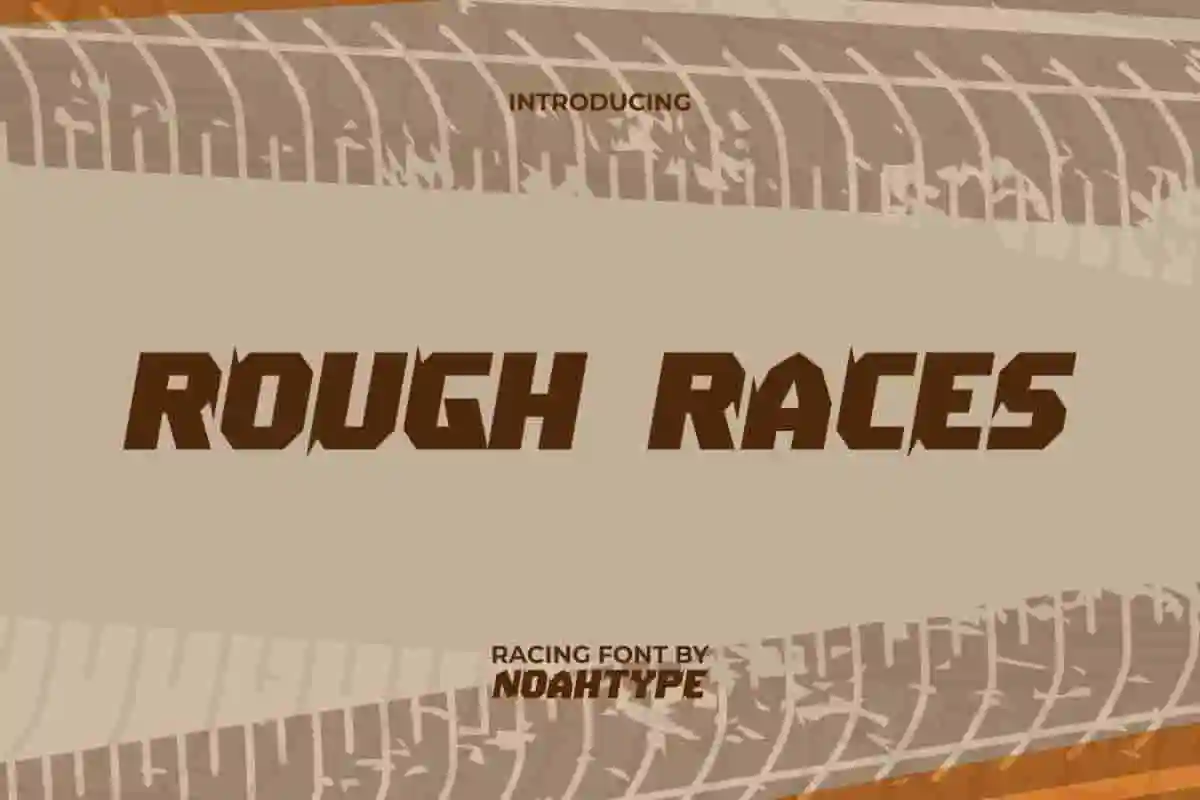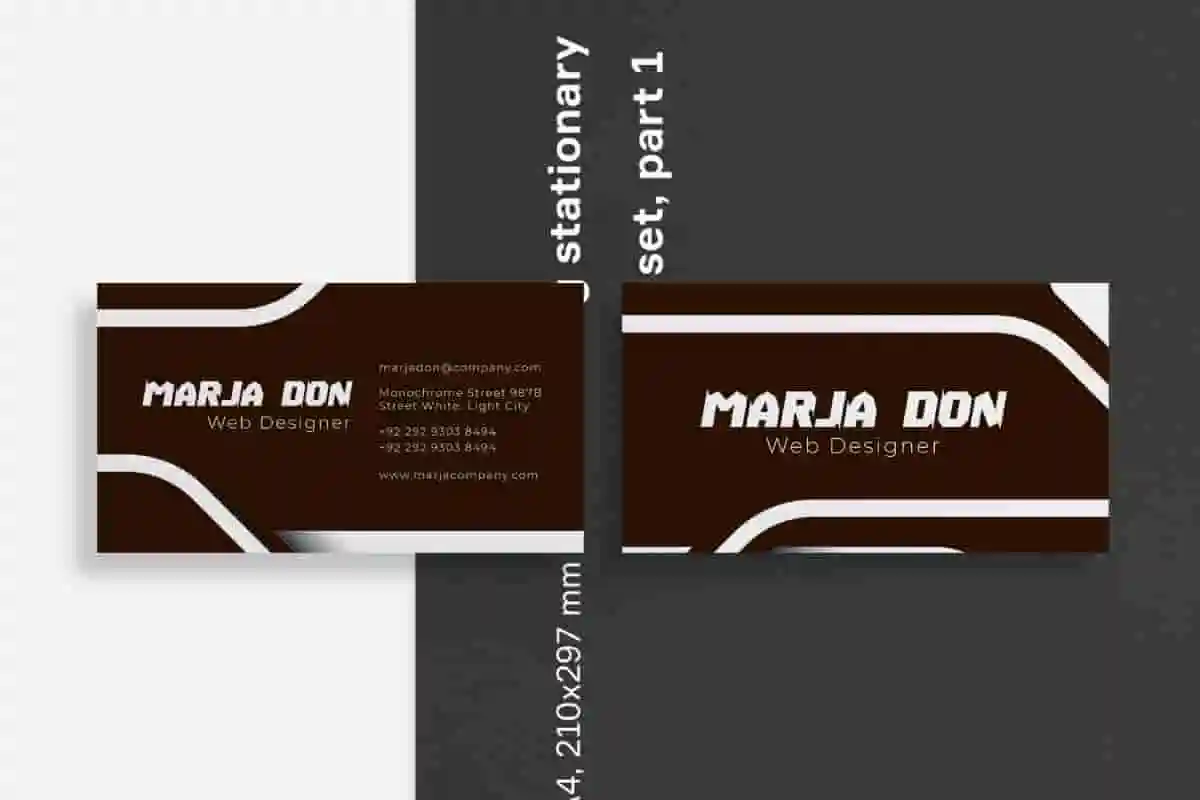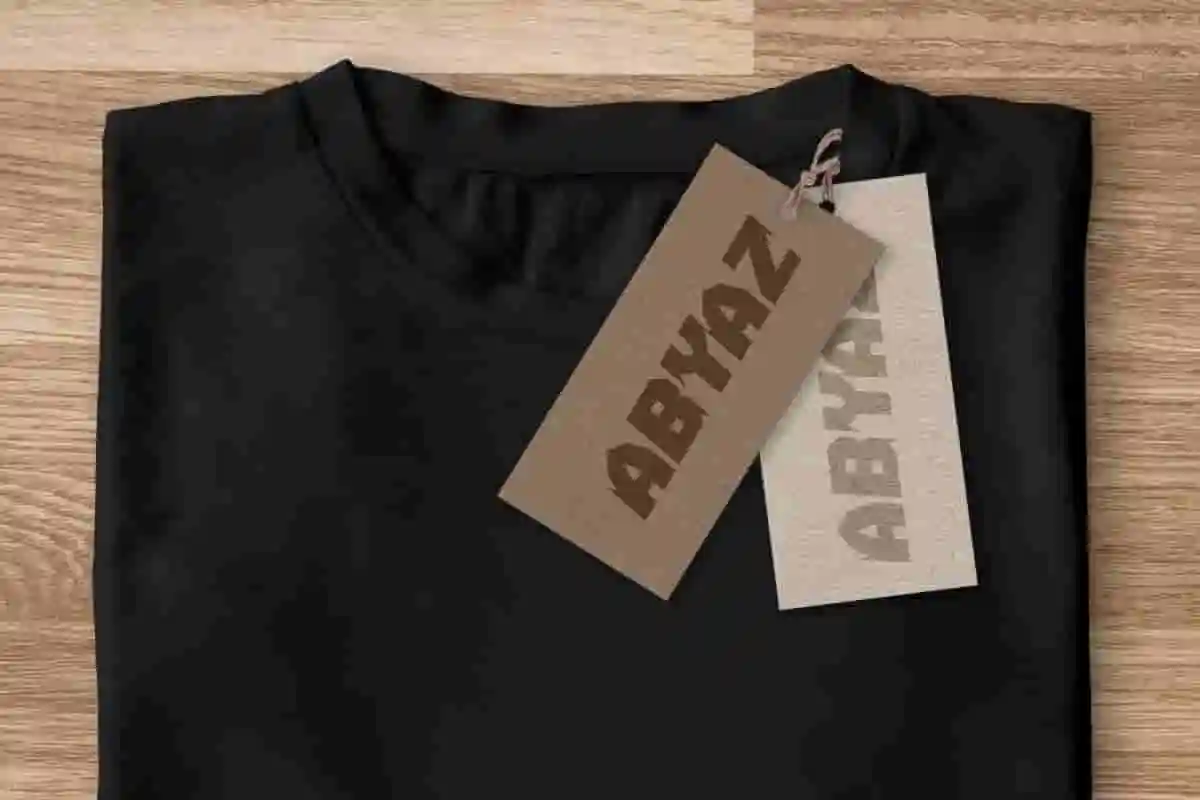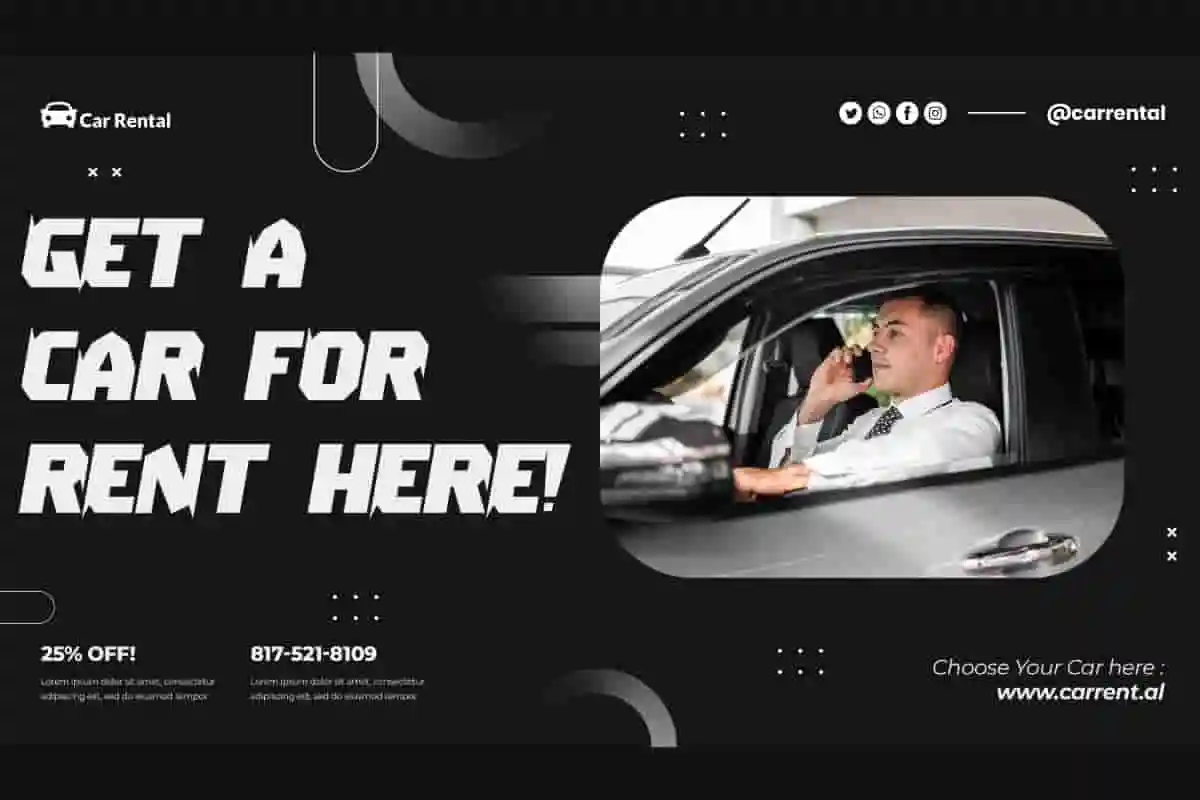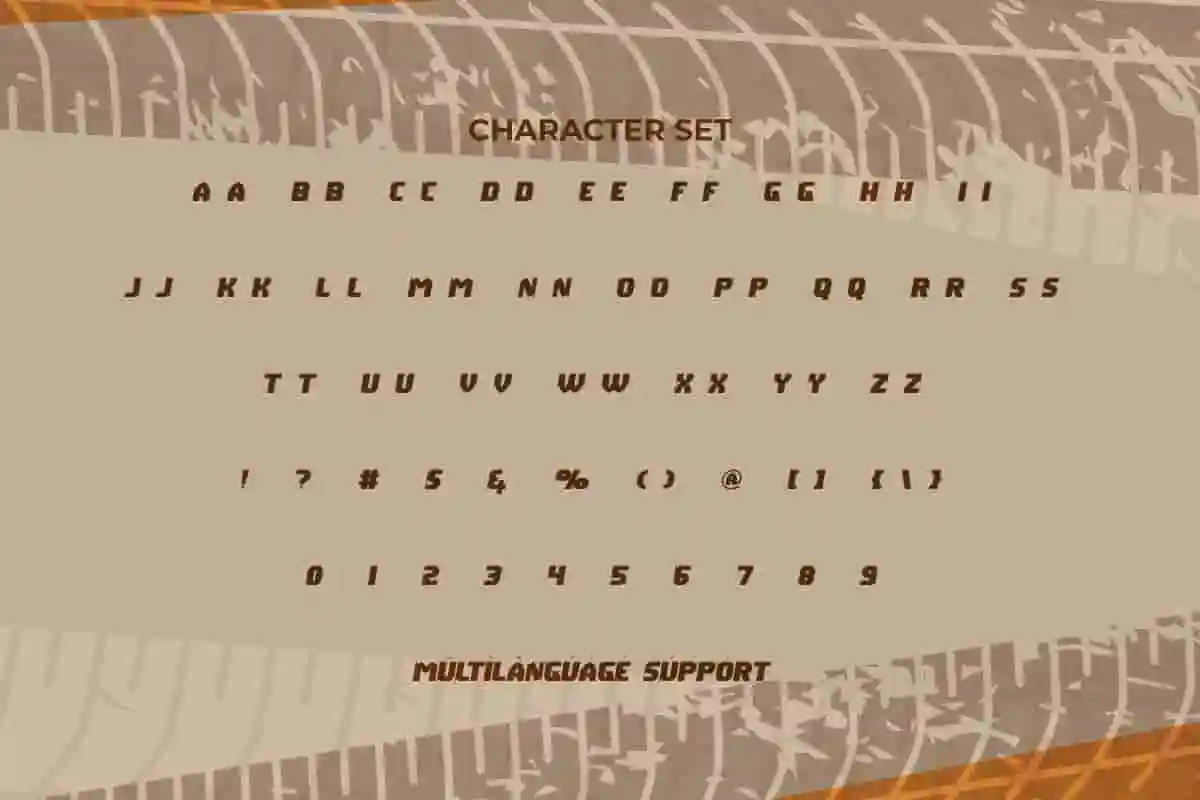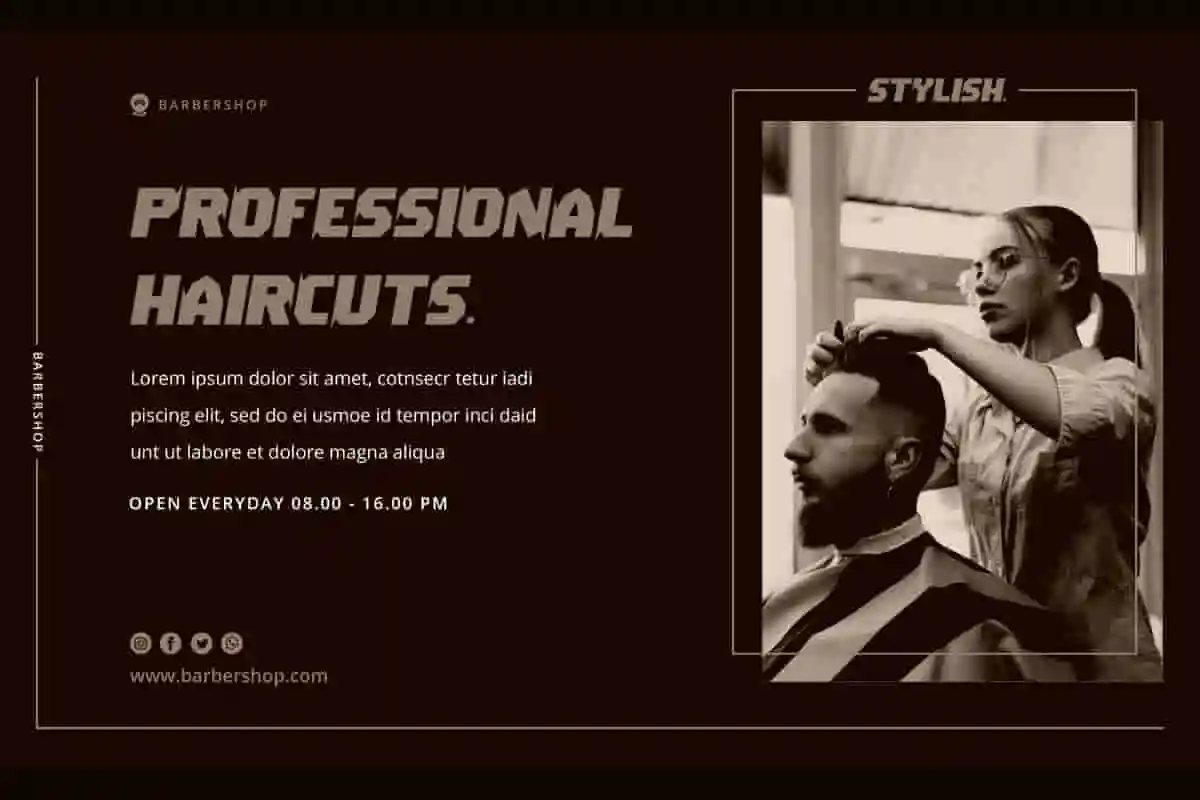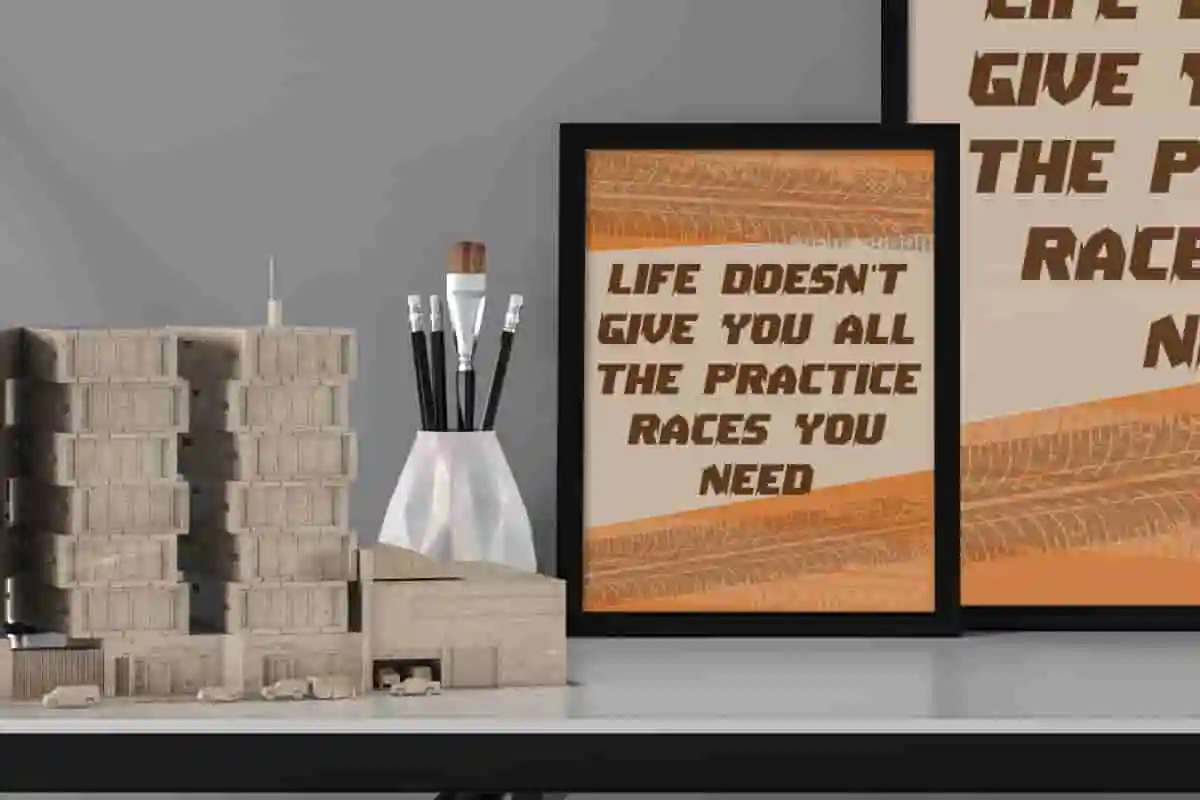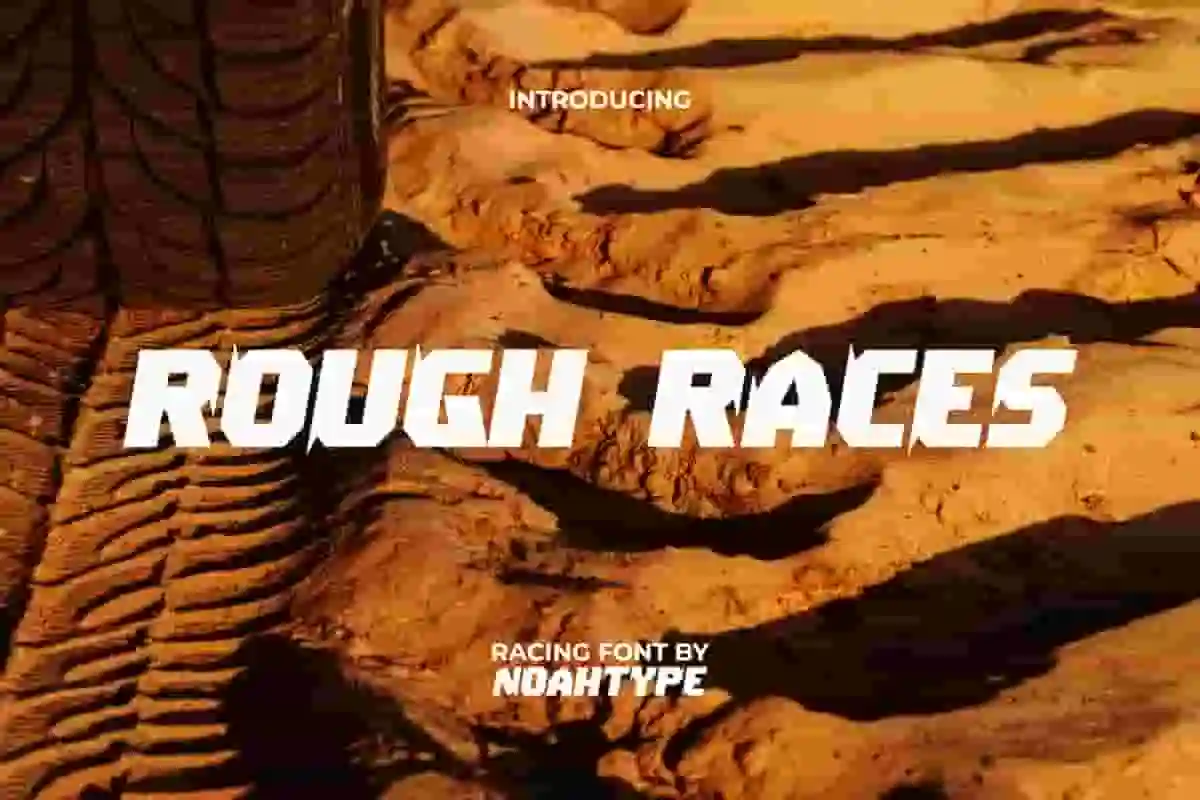
Rough Races Font is a stylish modern racing display font with strong created by NoahType. This font has clear legibility with bold characters with the addition of sharp thin lines on the side. It will be perfect for any designs, such as brand image, cover, custom design, invitation, label, menu, poster, printing, product packaging, quotes, signage, stationery, website, and many more!
Rough Races Font includes full set of ALL CAPS for Uppercase and Lowercase Basic Characters, Numerals, Punctuation, and Symbol. This modern font will make your design amazing and also a perfect choice for many industries, such as accessories, advertising, art, automotive, café, event or festival, fashion, game, movie, music, printing, publishing, sports, etc.